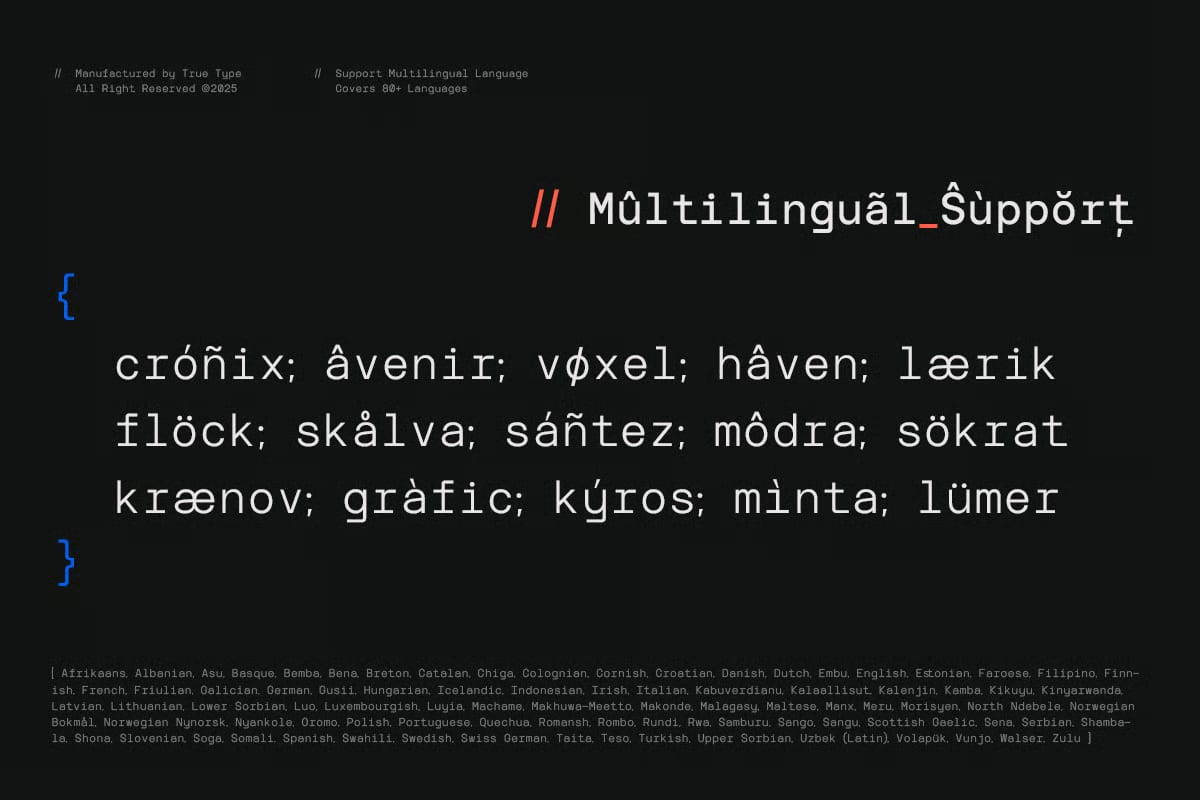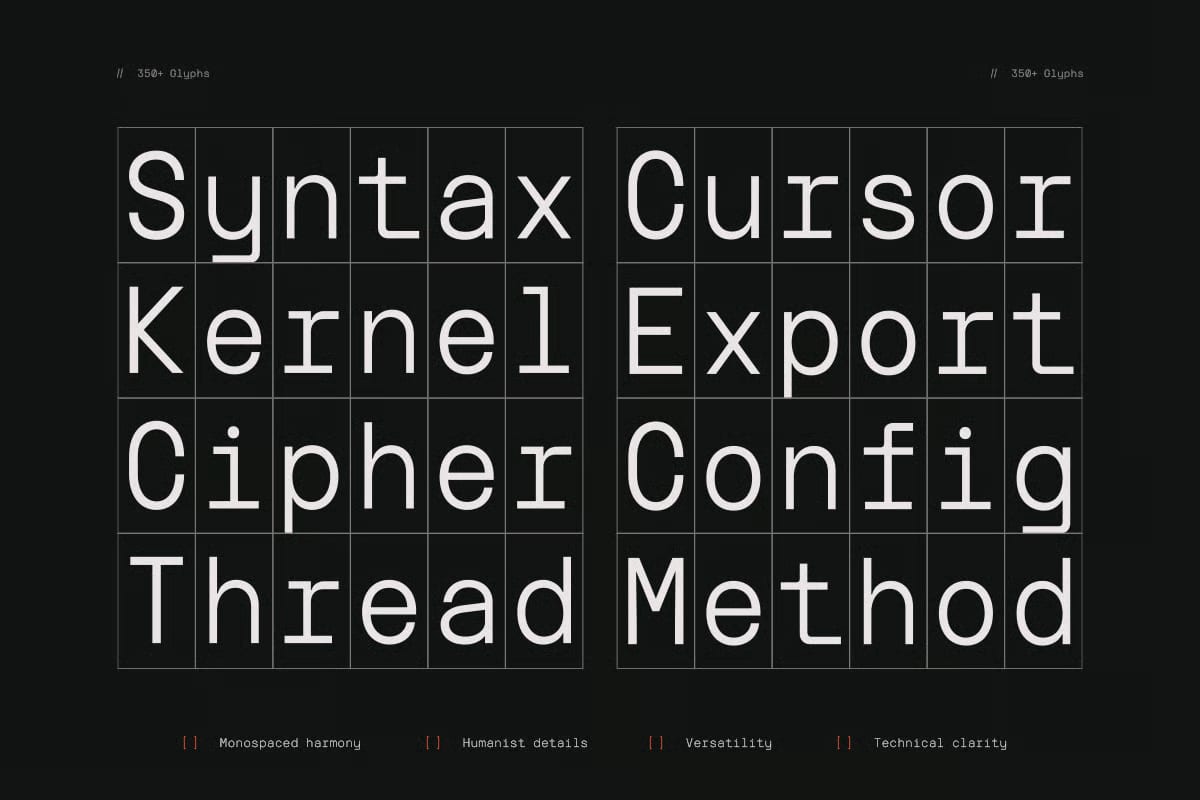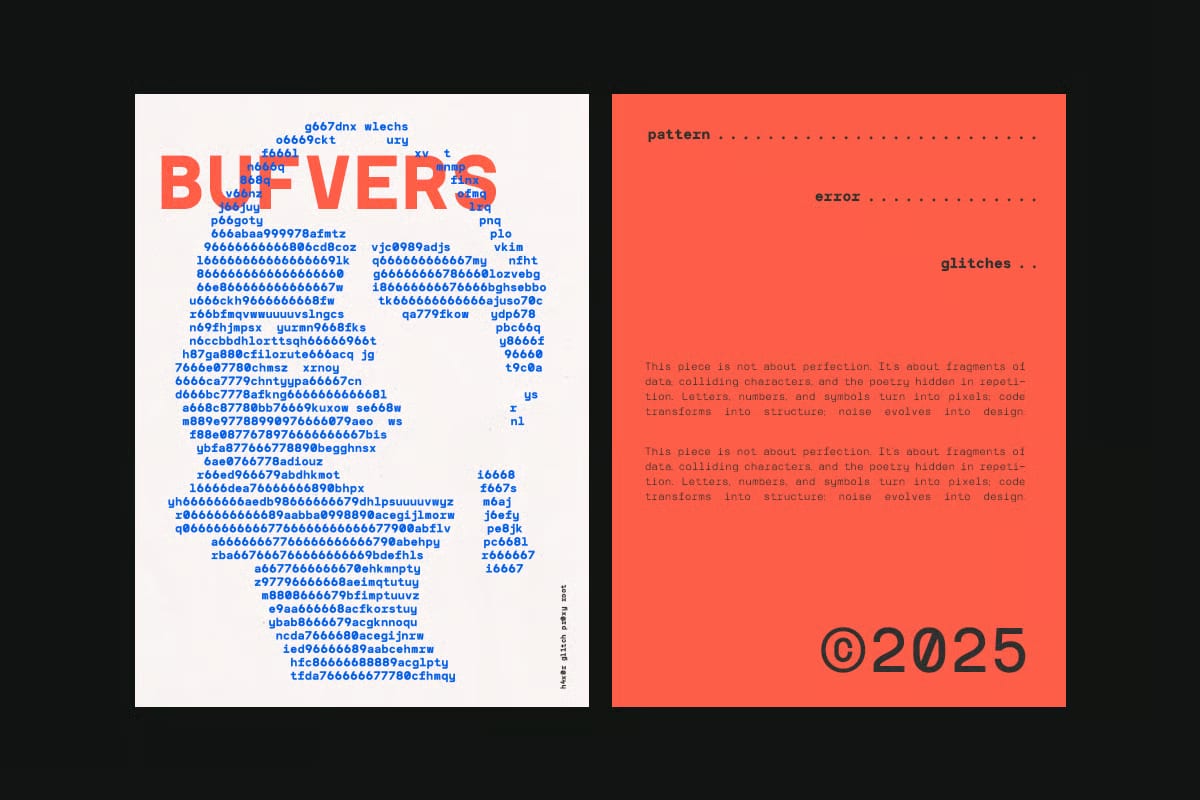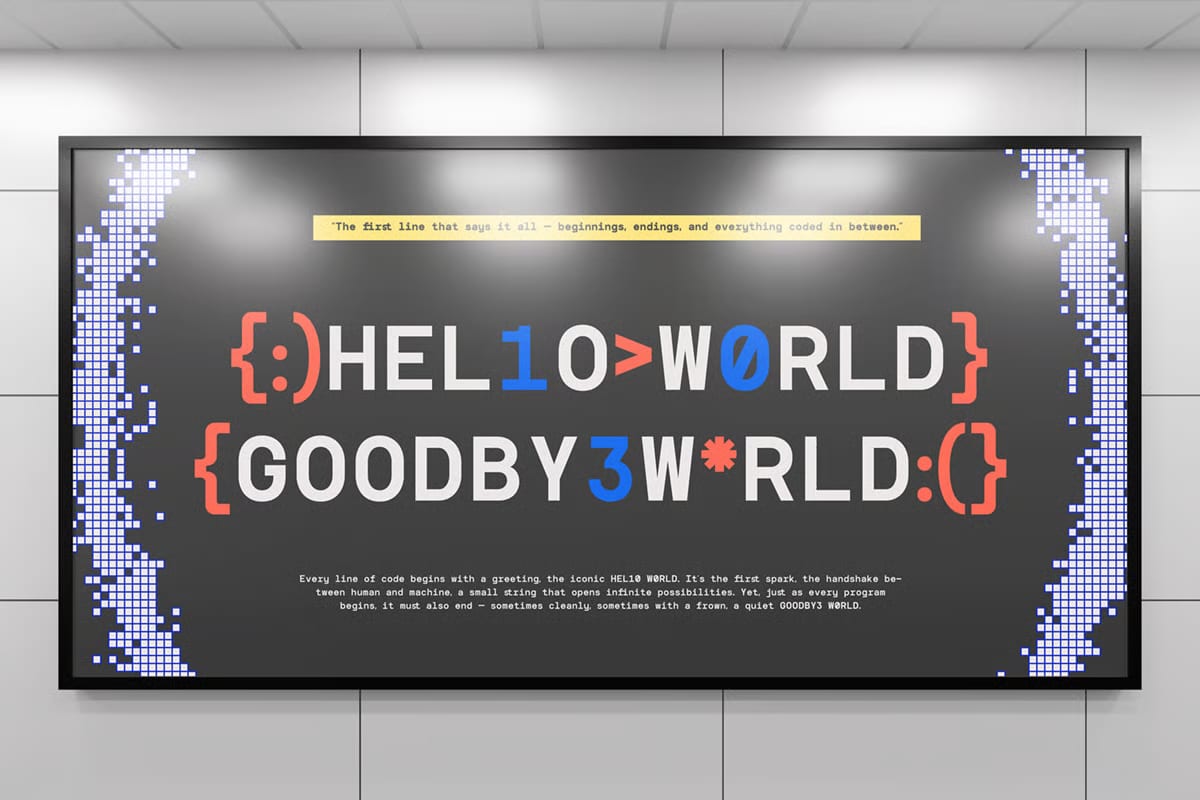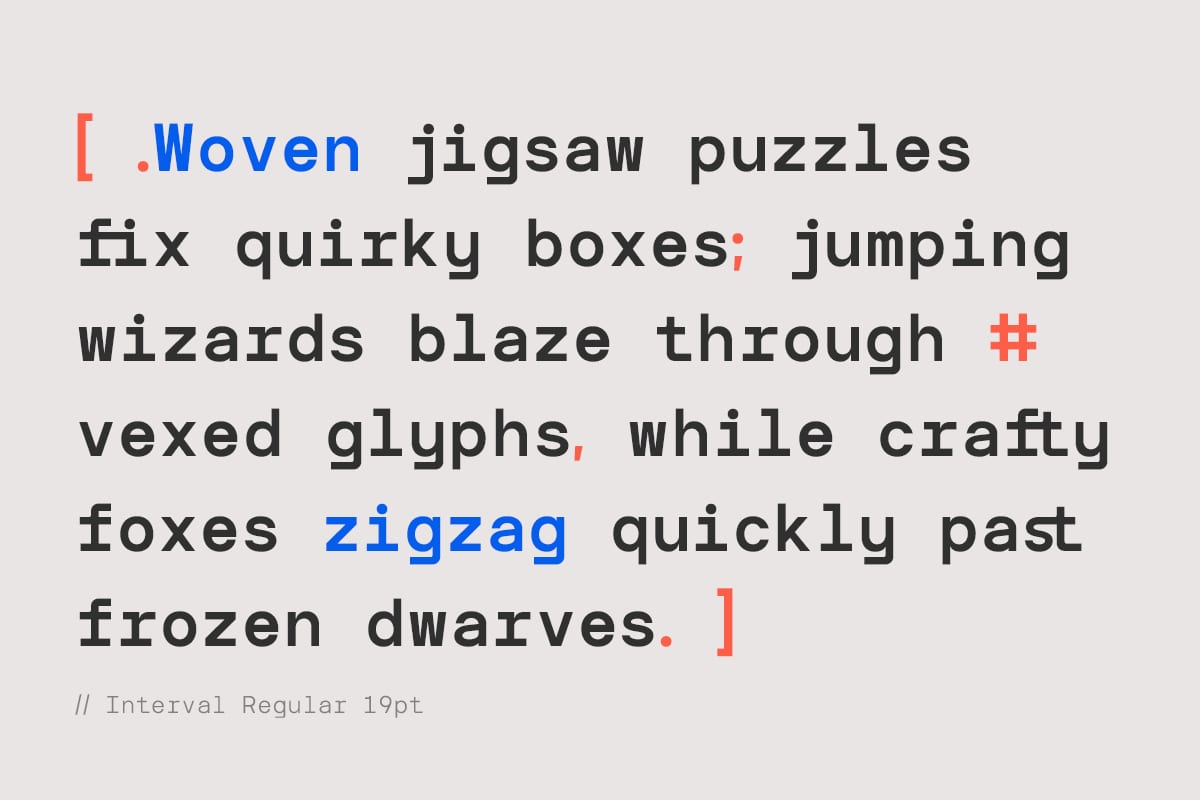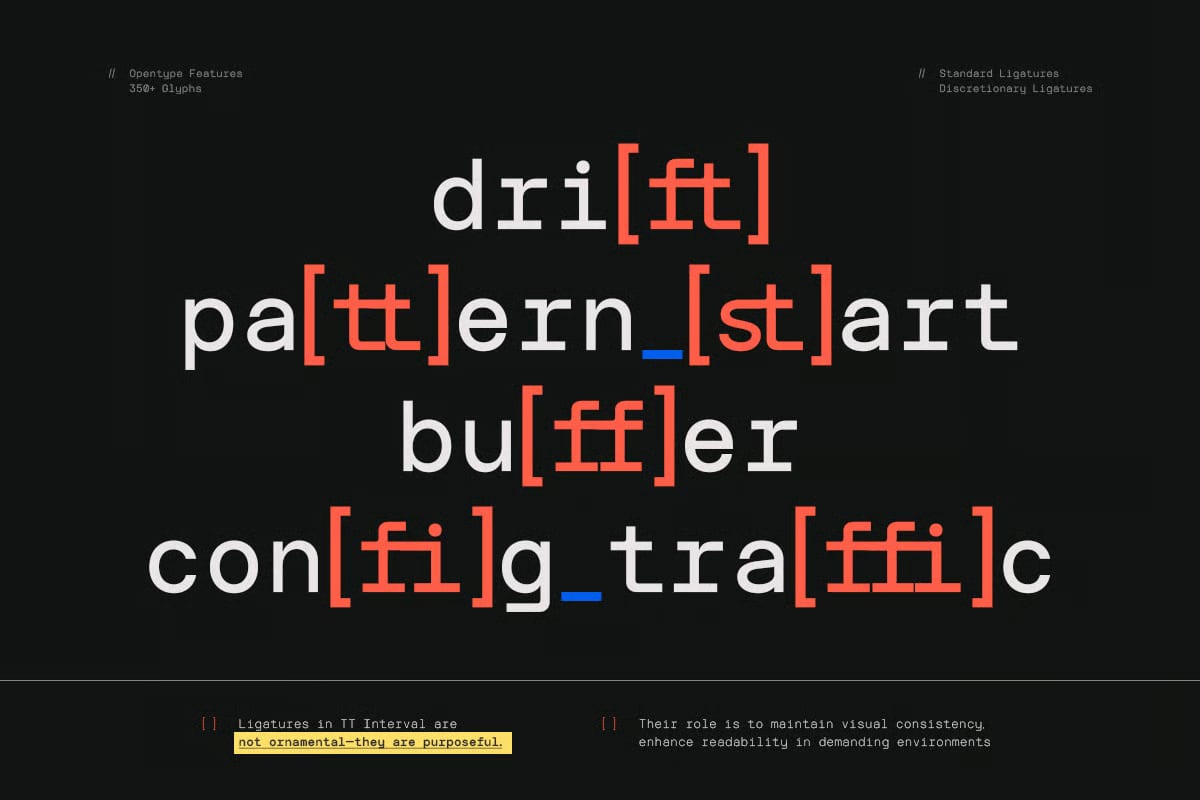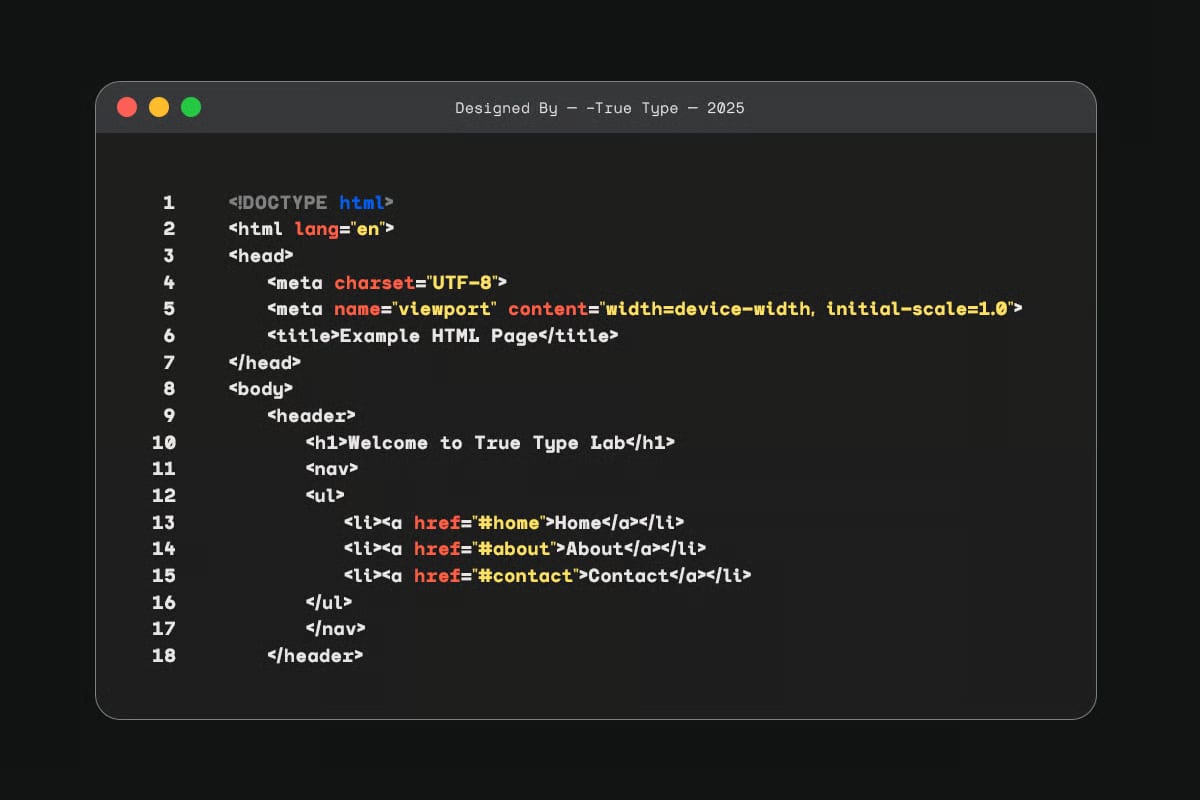
TBJ Interval is a modern monospace sans serif font with a clean and balanced look. It takes inspiration from classic monospace and geometric typefaces, but adds a softer feel so it works well in more contemporary design projects.
The font is built with consistent widths, clean lines, and a modular grid structure. It also includes subtle details in some glyphs, which helps it feel a little more human and less rigid while still keeping that precise monospace style.
TBJ Interval comes in Light, Regular, and Bold styles, with uppercase and lowercase letters, numerals, punctuation, accented characters, and multilingual support. It is Unicode PUA encoded and includes OTF, TTF, and WOFF files, along with documentation.
This font is suitable for branding, editorial layouts, user interfaces, and code-related designs. It is made for clear reading, steady rhythm, and flexible use across different kinds of projects.